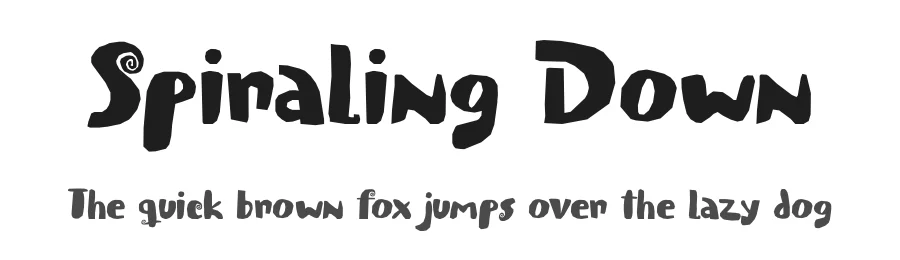
About Spinstee Font
Spinstee is a decorative font designed by Drippy's Fonts. It includes 83 glyphs, a regular weight, TTF (TrueType) format, and 104 languages. Spinstee is free to download; check the license details on this page before commercial use. Decorative fonts like Spinstee work best for logos, posters, packaging, and standout headlines.
Spinstee Font is a decorative font that shines as a display or heading face. Pair it with a clean sans-serif or serif font for body text β the contrast creates a clear hierarchy while the two styles stay balanced and easy to read.
Spinstee Font
Spinstee Font is a decorative typeface by Drippy's Fonts, ideal for logos, invitations, branding, and creative projects.